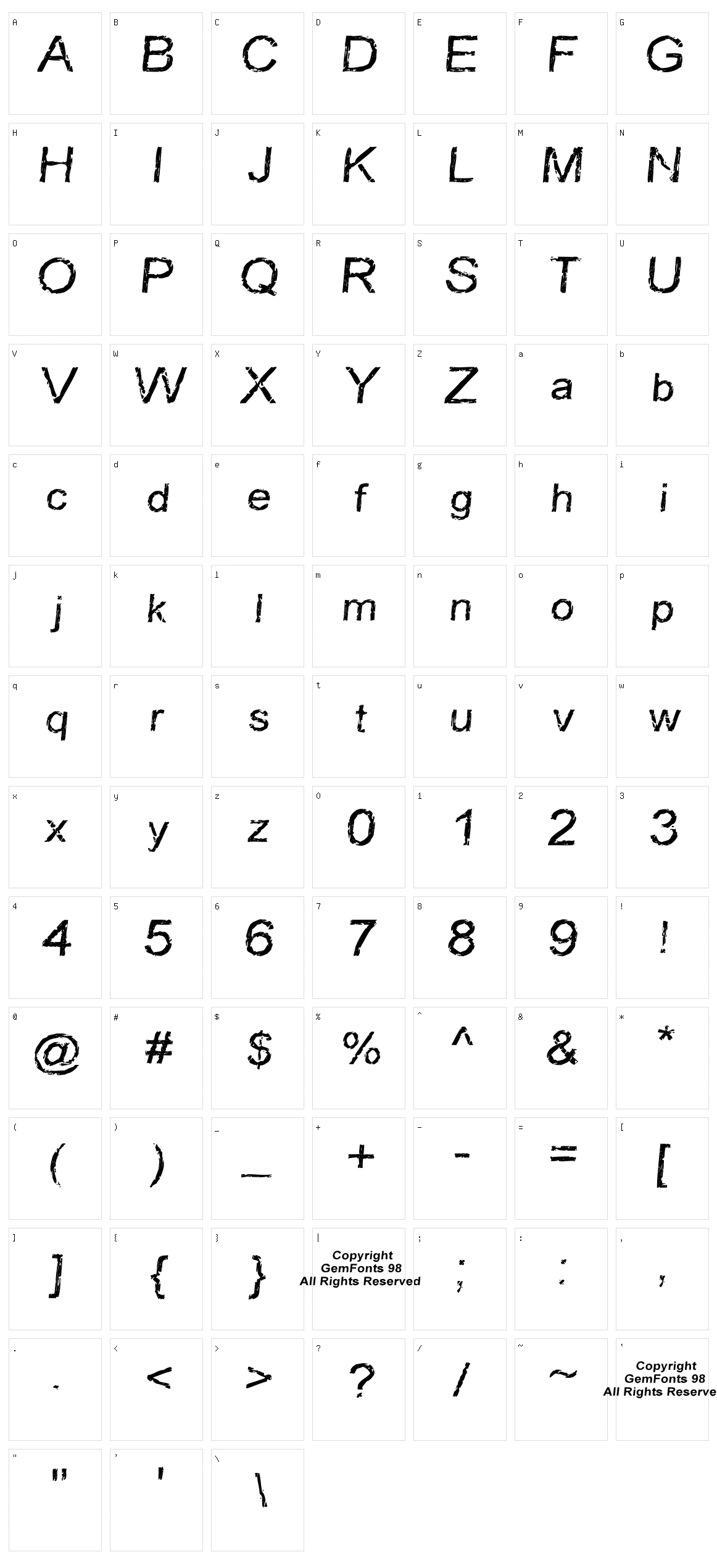
The free font Carbonized Timber is carefully designed by GemFonts / Typotheticals, showcasing a thoughtful balance of creativity and usability and falls under the Eroded font style. When you download the ZIP file, it contains only 76.12 KB of font files, making it lightweight and quick to download. Please review the license details below to understand permitted usage and distribution rights. If license information is not available, we recommend using this font for personal projects only or contacting the author directly for commercial usage permissions.